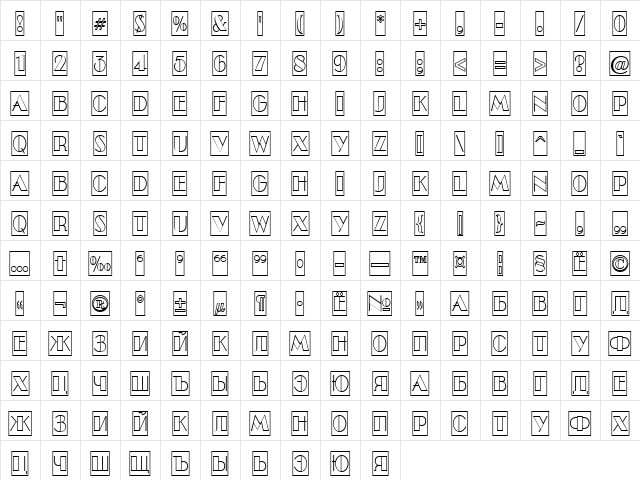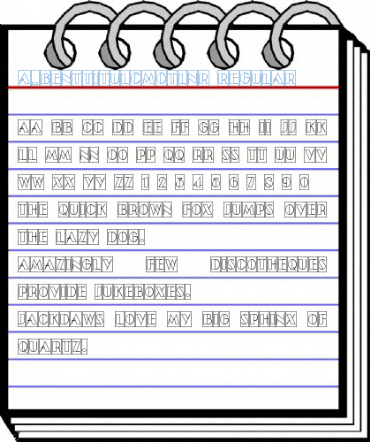
a_BentTitulCmOtlNr Regular
Design Context for a_BentTitulCmOtlNr
a_BentTitulCmOtlNr is a composed and adaptable typeface that performs quietly and consistently across a wide range of design contexts.
First published in 1997, this typeface is available in TrueType (TTF) format.